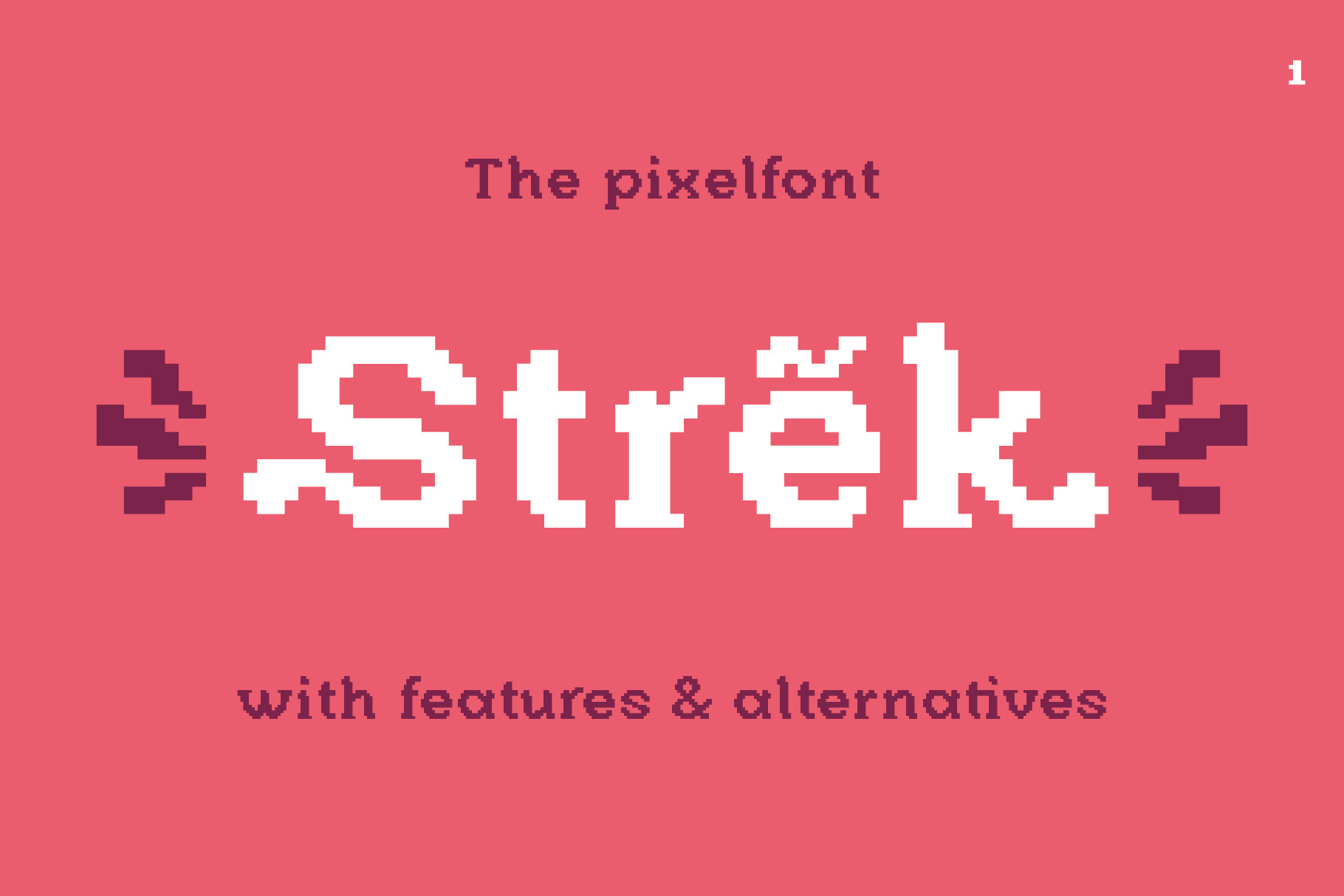
Strek – Pixel Font
Introducing "Strek" – an innovative pixel font that blends retro elements with a modern twist. This versatile typeface offers a wide range of glyphs for various languages and incorporates advanced OpenType features. With automatically added alternative decorative letters at the beginning and end of each word, along with numerous ligatures and alternate characters, "Strek" becomes an indispensable tool for graphic design, game development, app design, and print media. With OpenType features enabled, "Strek" excels in creating eye-catching headlines and custom branding, while maintaining excellent readability for body text and advertising copy when features are disabled. Utilizing OpenType features requires software like Adobe InDesign, supporting "Automatic Positional Forms."